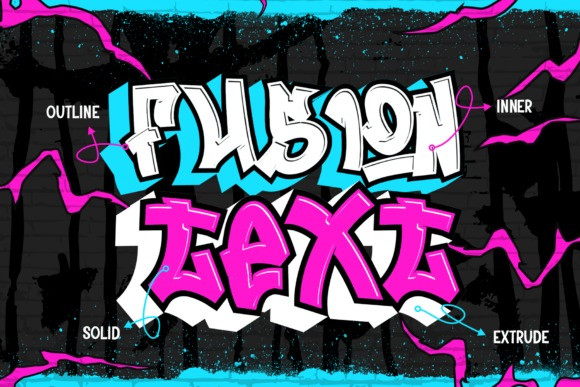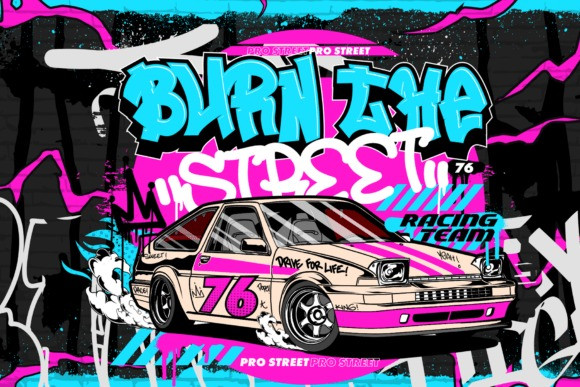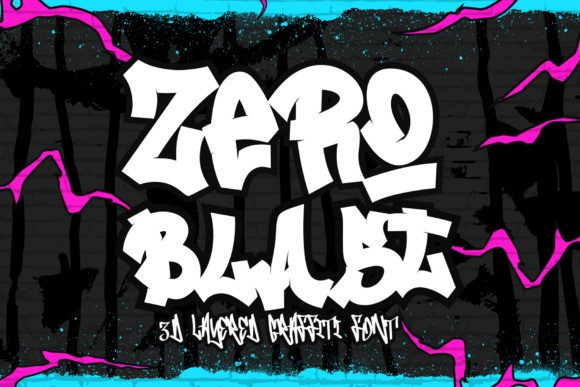
Zero Blast Font
Zero Blast Font – the epitome of street style chic. This visually striking 3D layered graffiti font oozes sophistication, lending dynamism and depth to your creative endeavors. Engineered with four unique layers – solid, extrude, outlined, and inner shadow – Zero Blast enables ingenious layering and ambitious visual effects. Embellished with a contemporary, edgy flair, this font reigns supreme for urban branding, audacious posters, iconic album covers, and designs inspired by the hip-hop culture. If it’s a memorable graffiti-style or a stand-out display font you’re after, Zero Blast infuses your projects with a flavor of rebellion and spirit, evolving them into dynamic masterpieces.